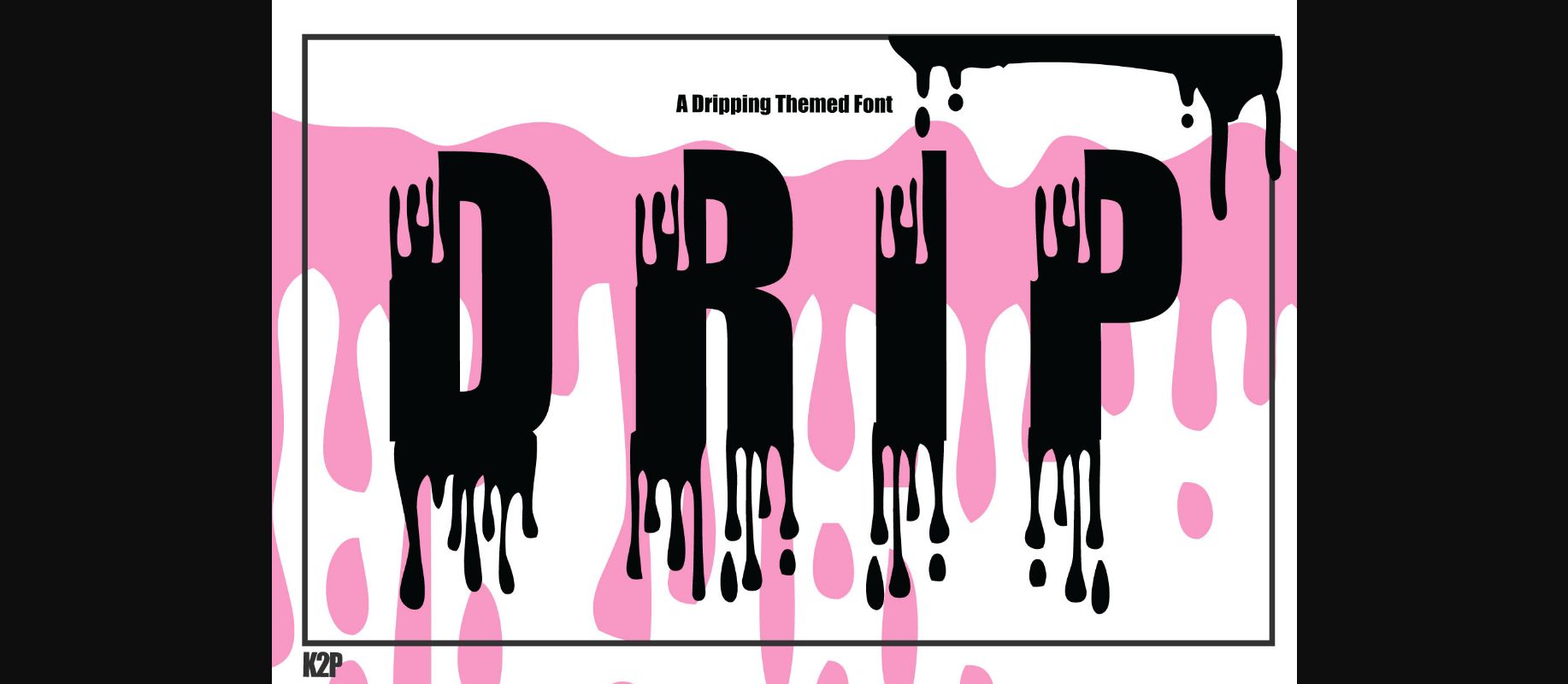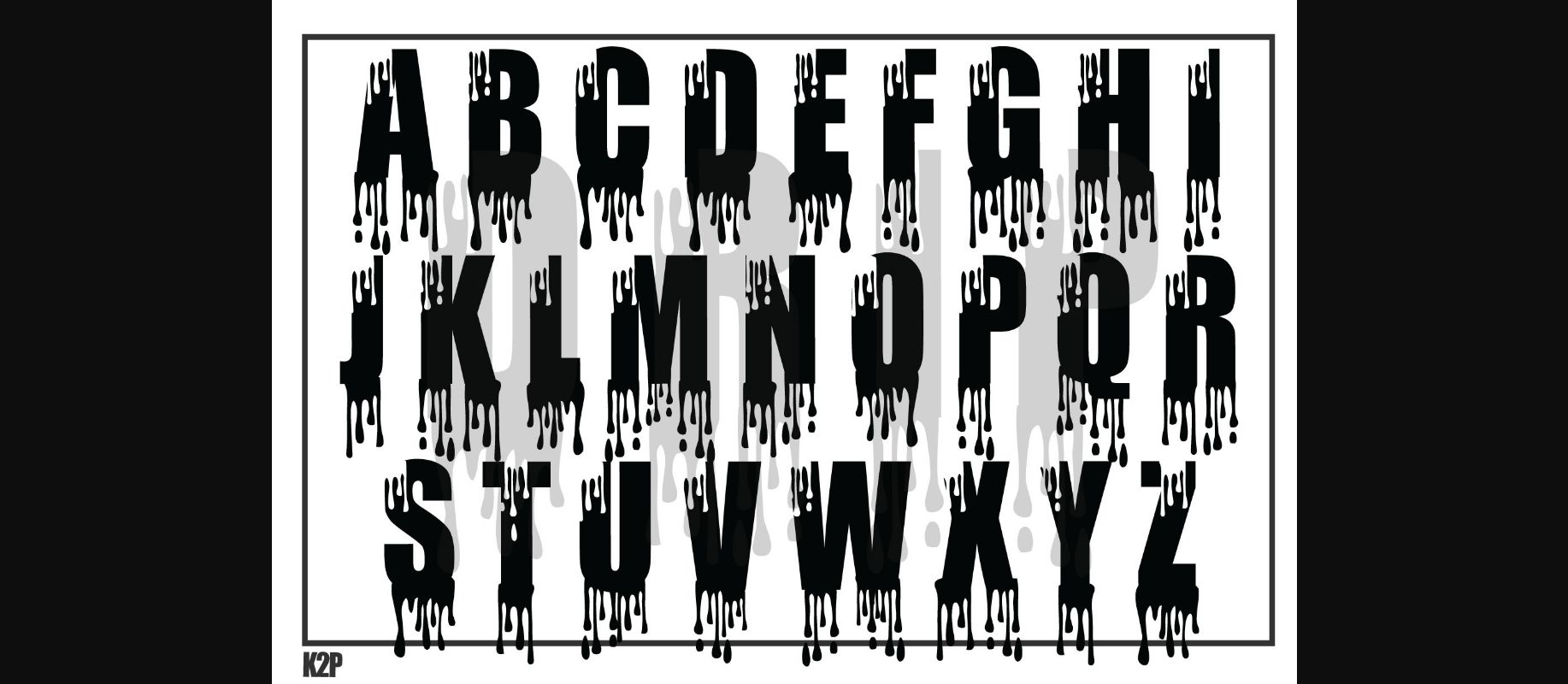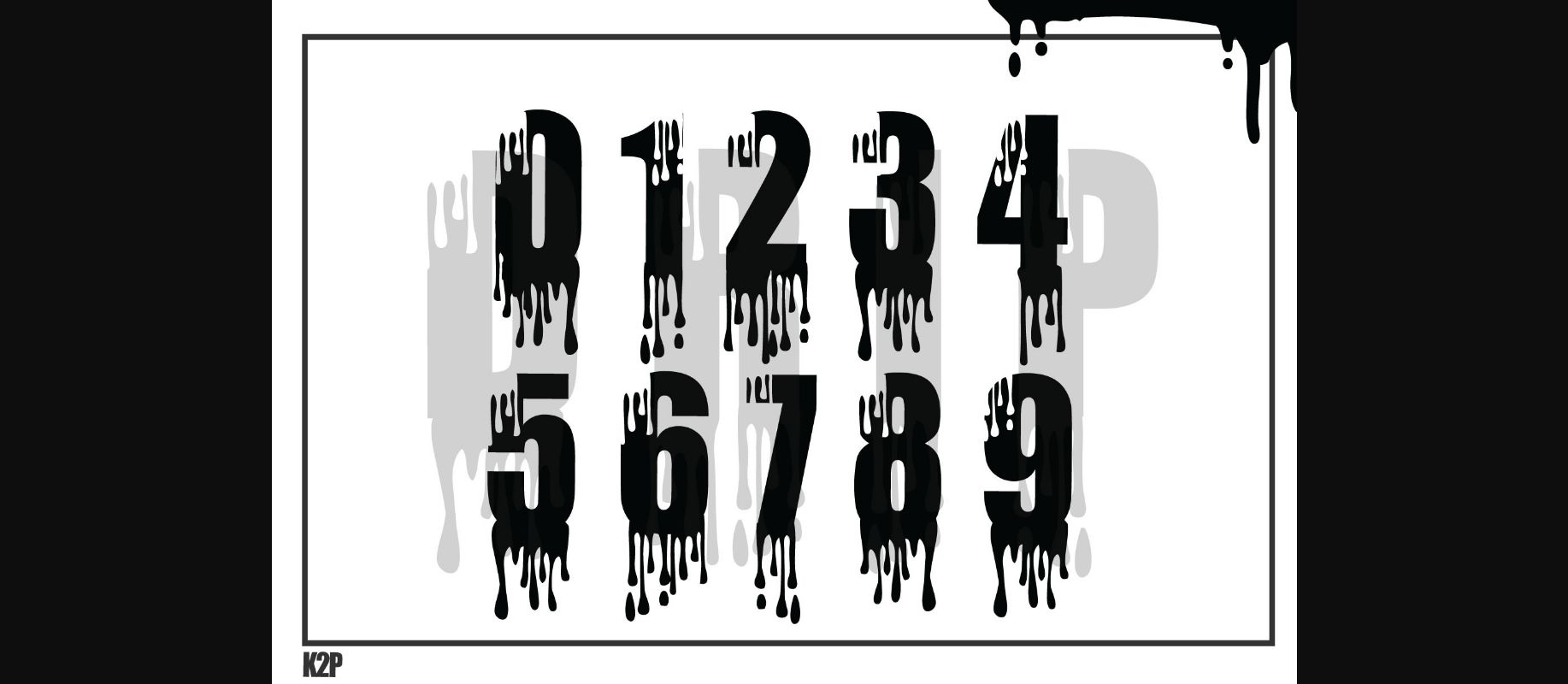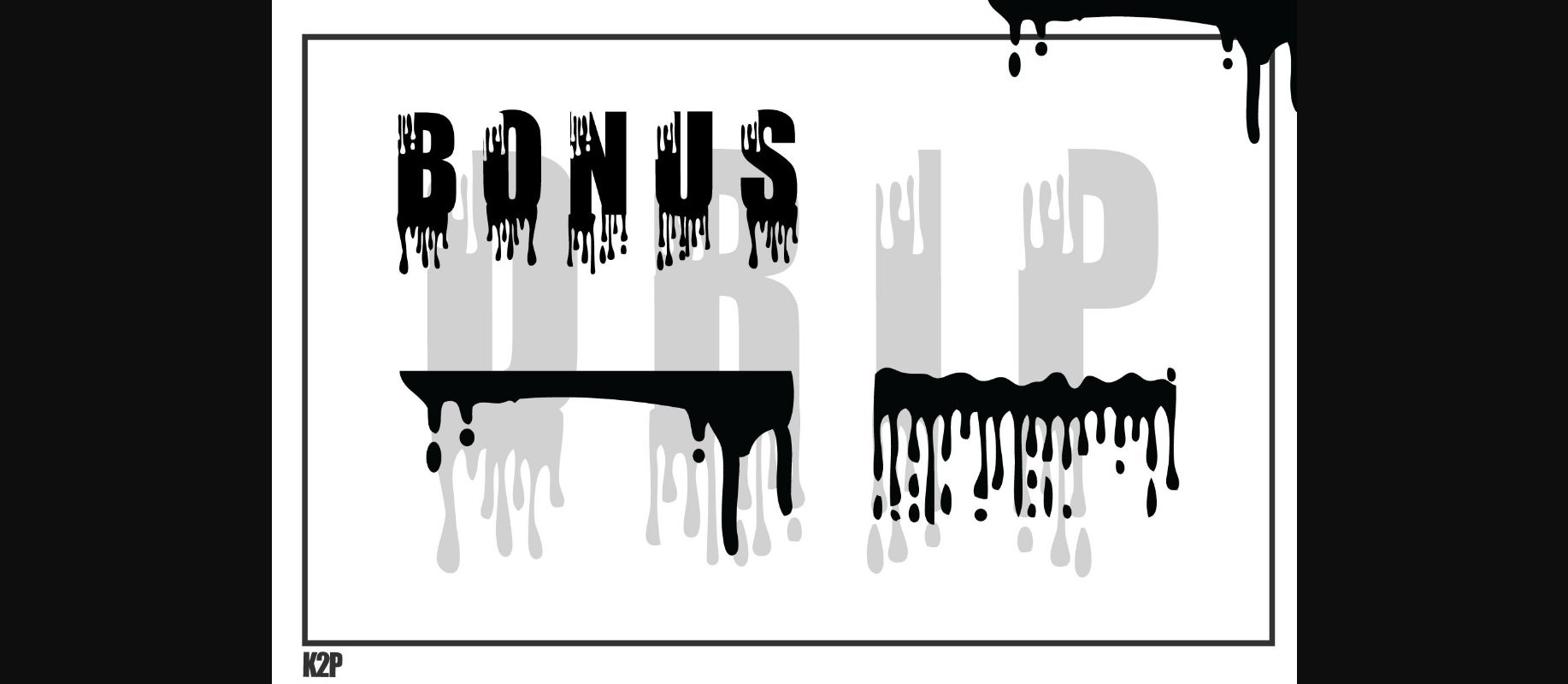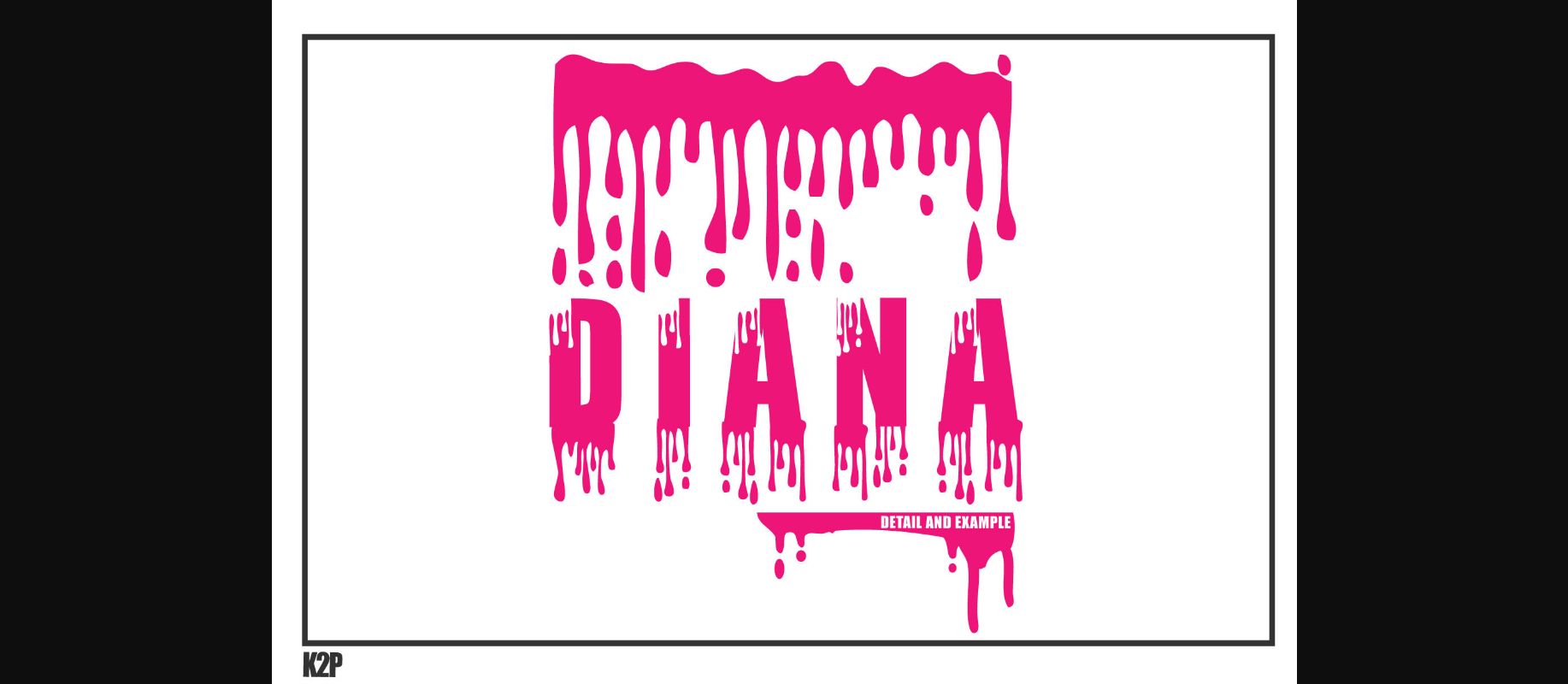
Dripx Font Font
About Dripx Font
Drip is a thick lettered yet unique and original display font that can be used for a variety of quotes or teaching material! Its authentic look will add a personal and realistic feel to your designs.